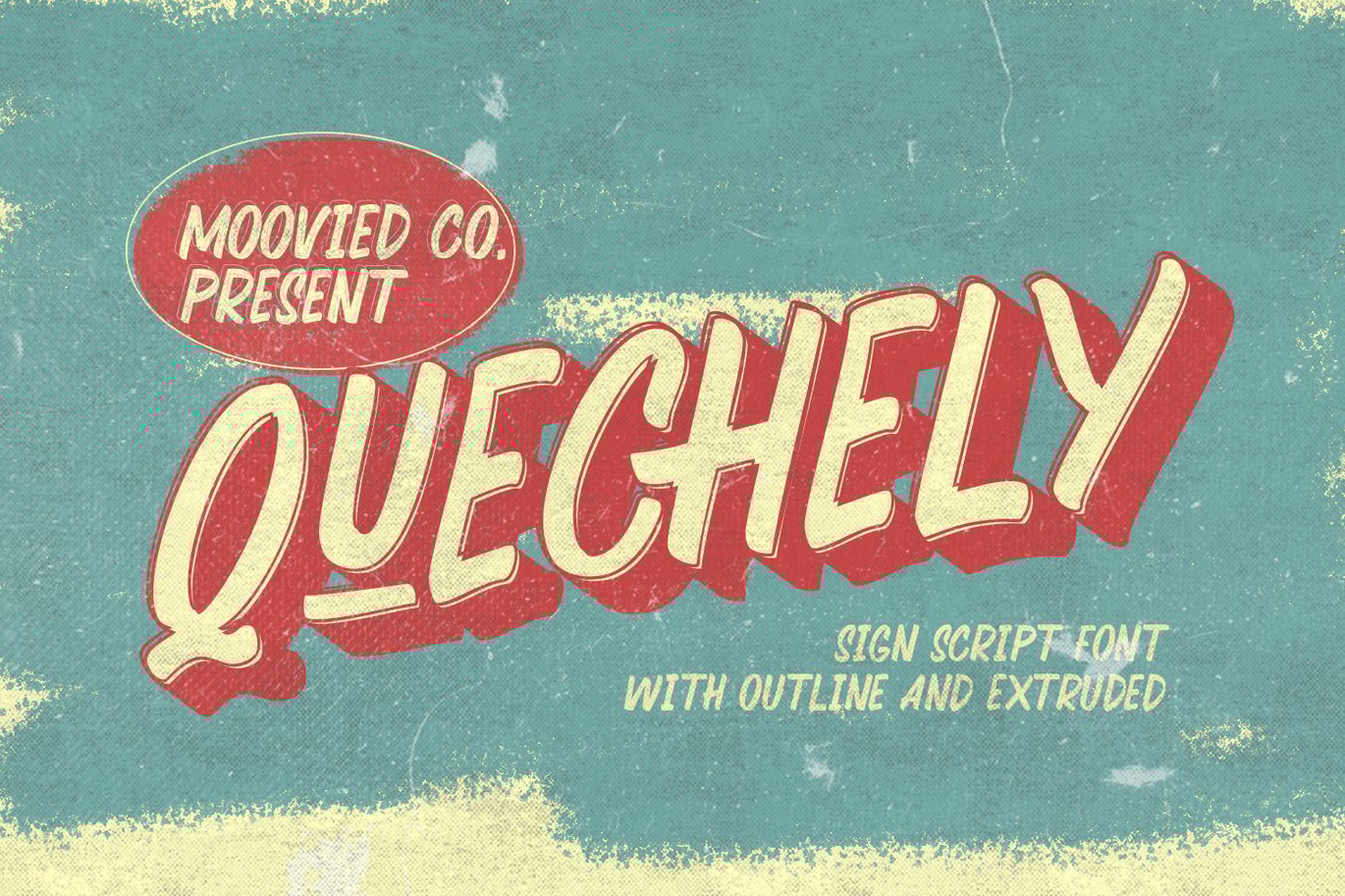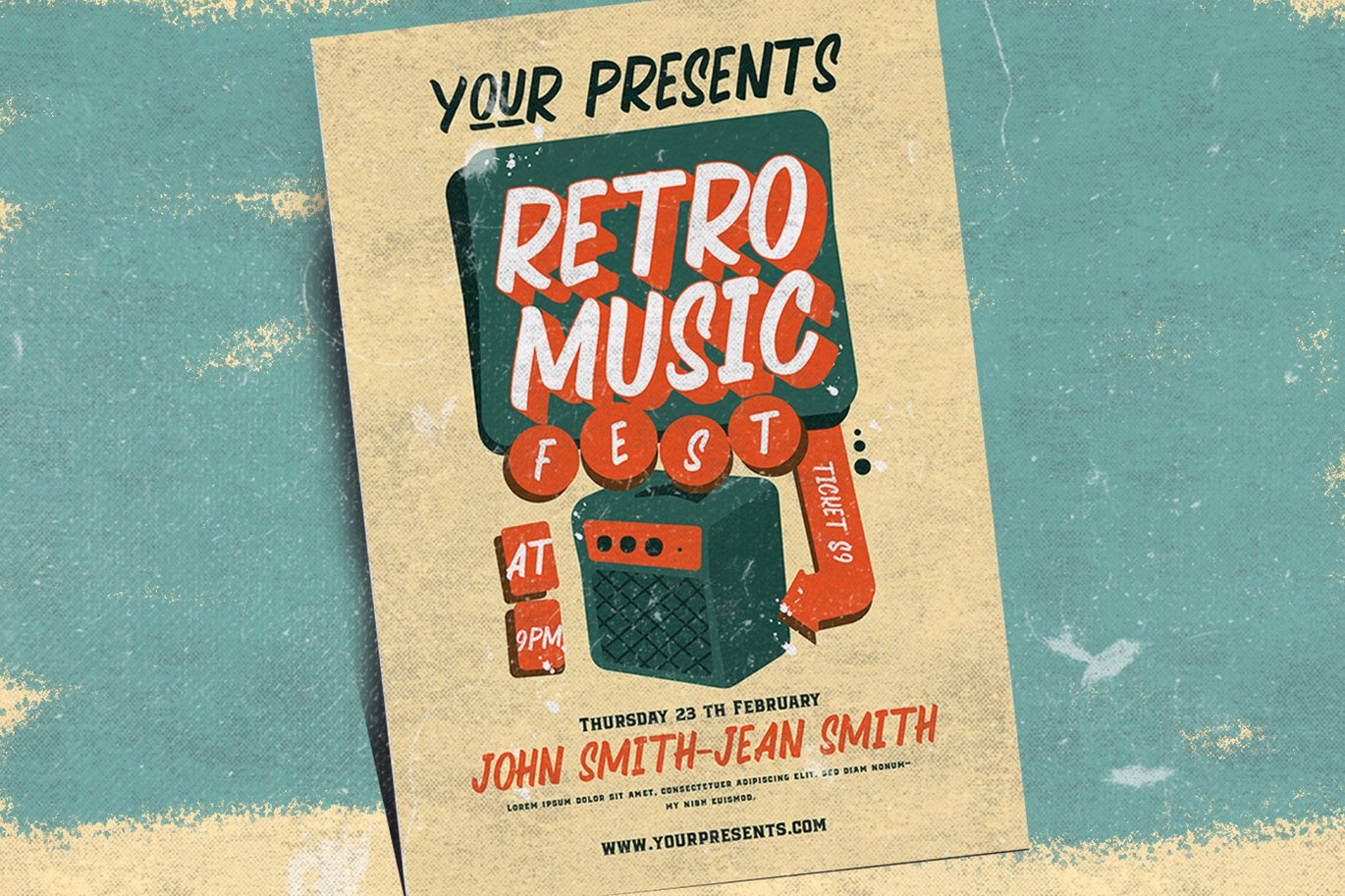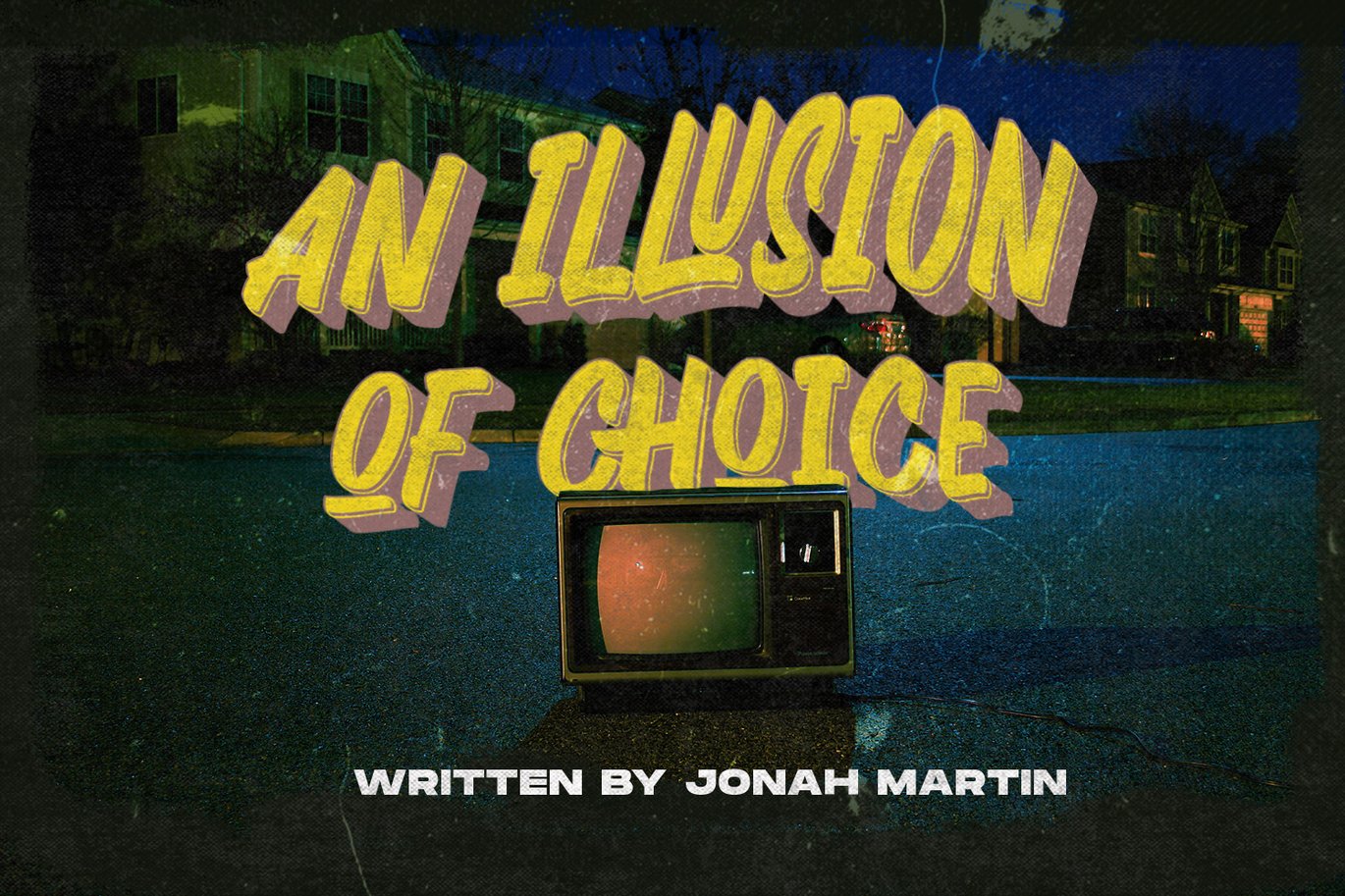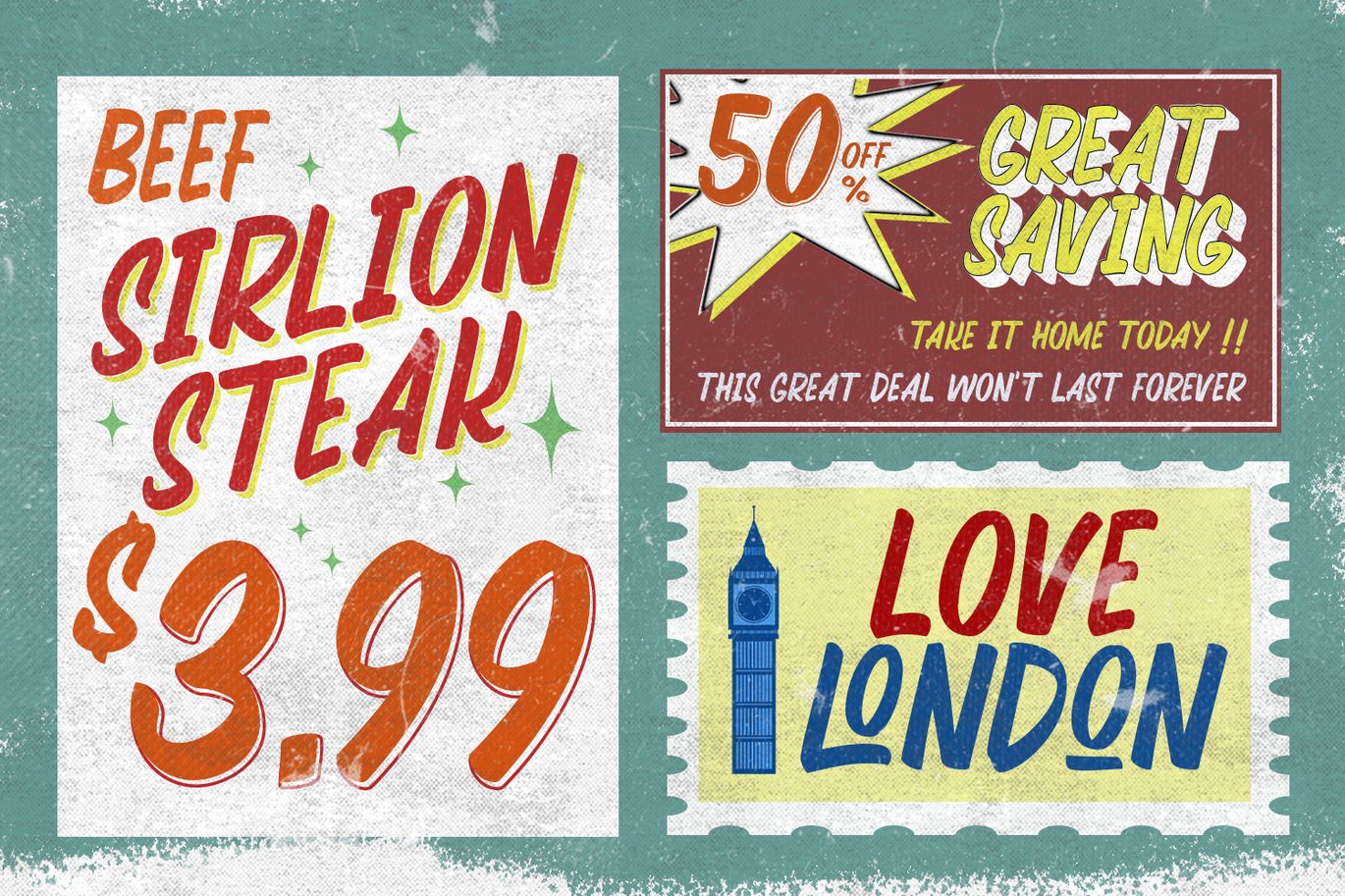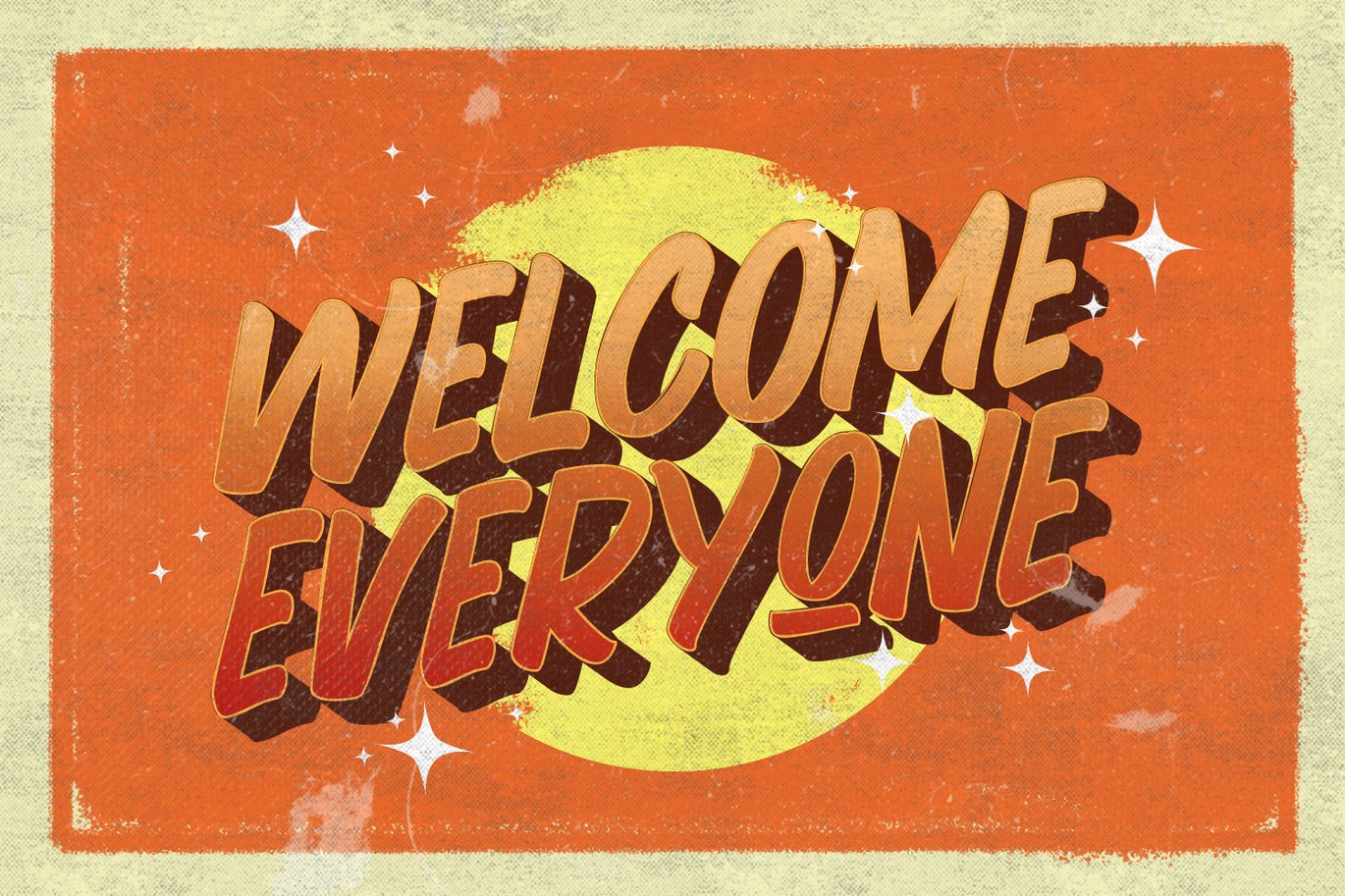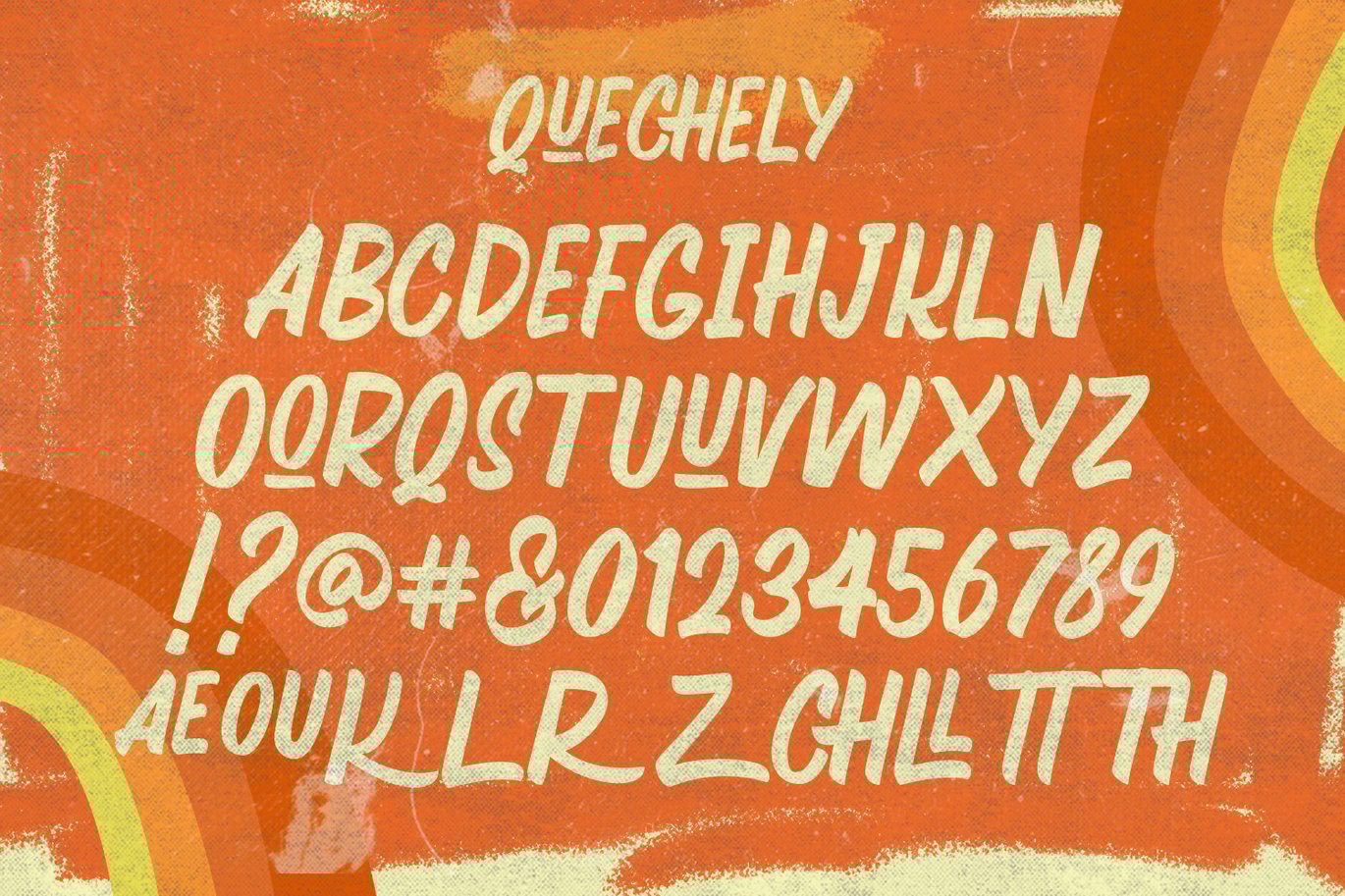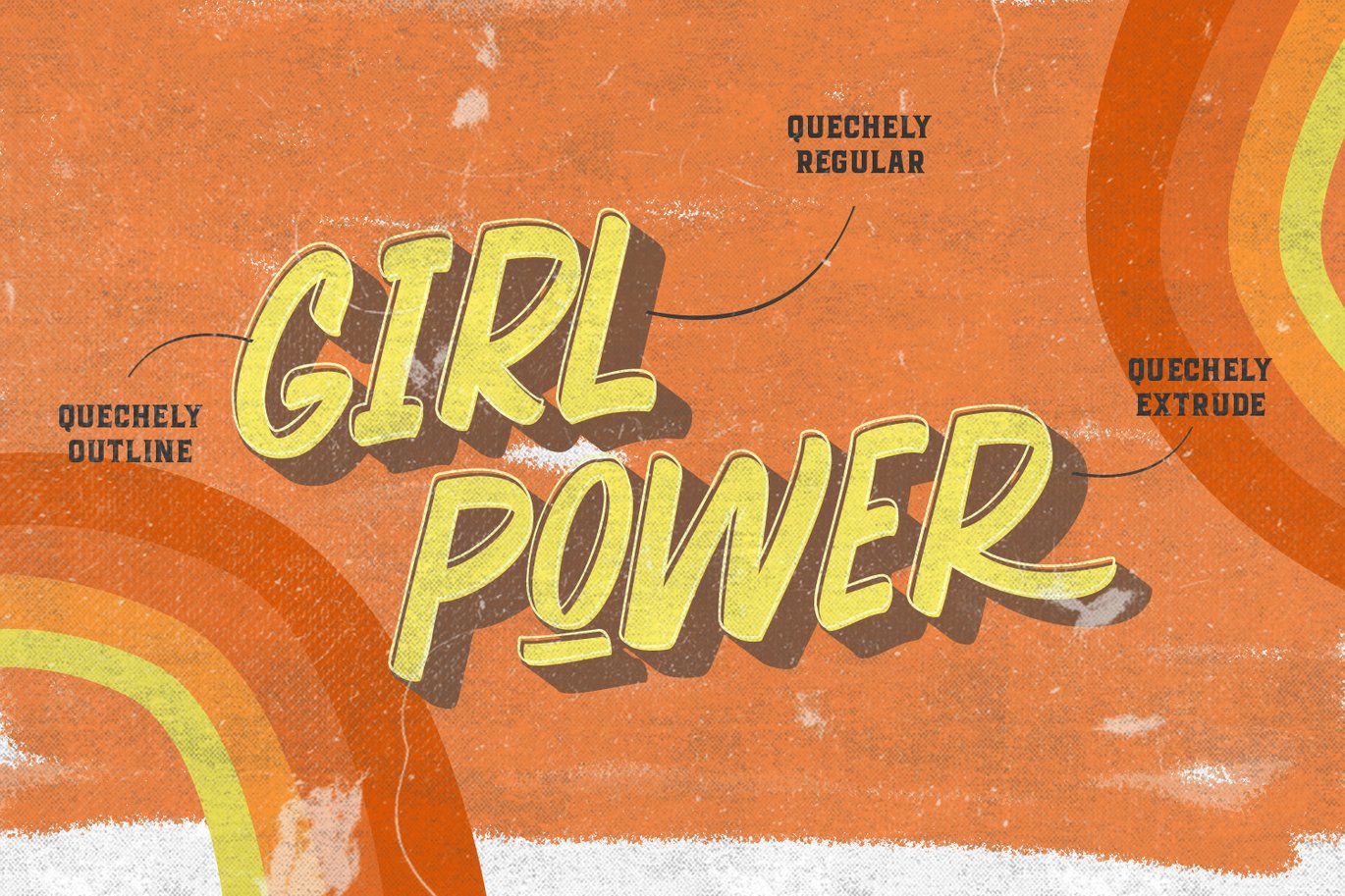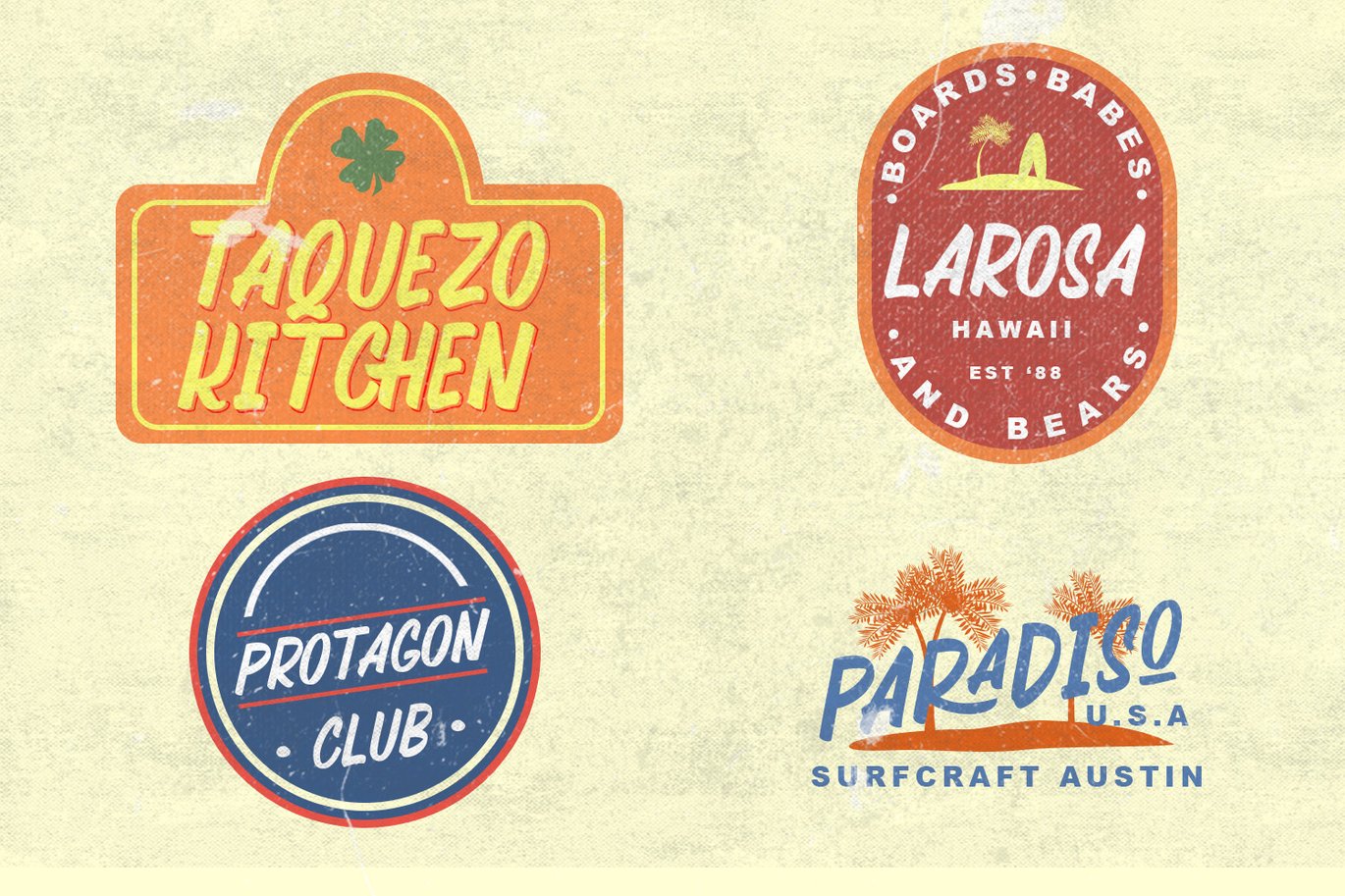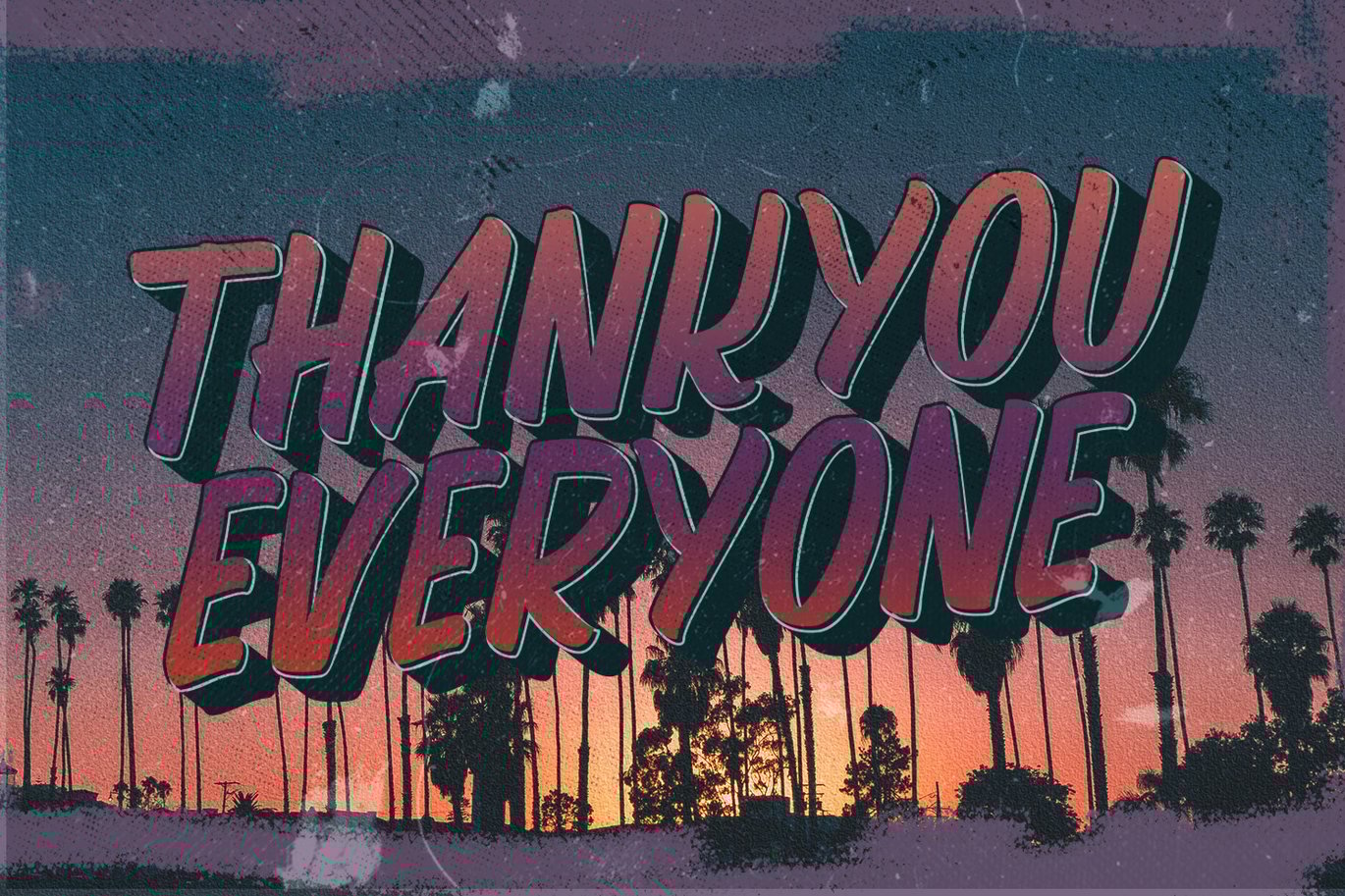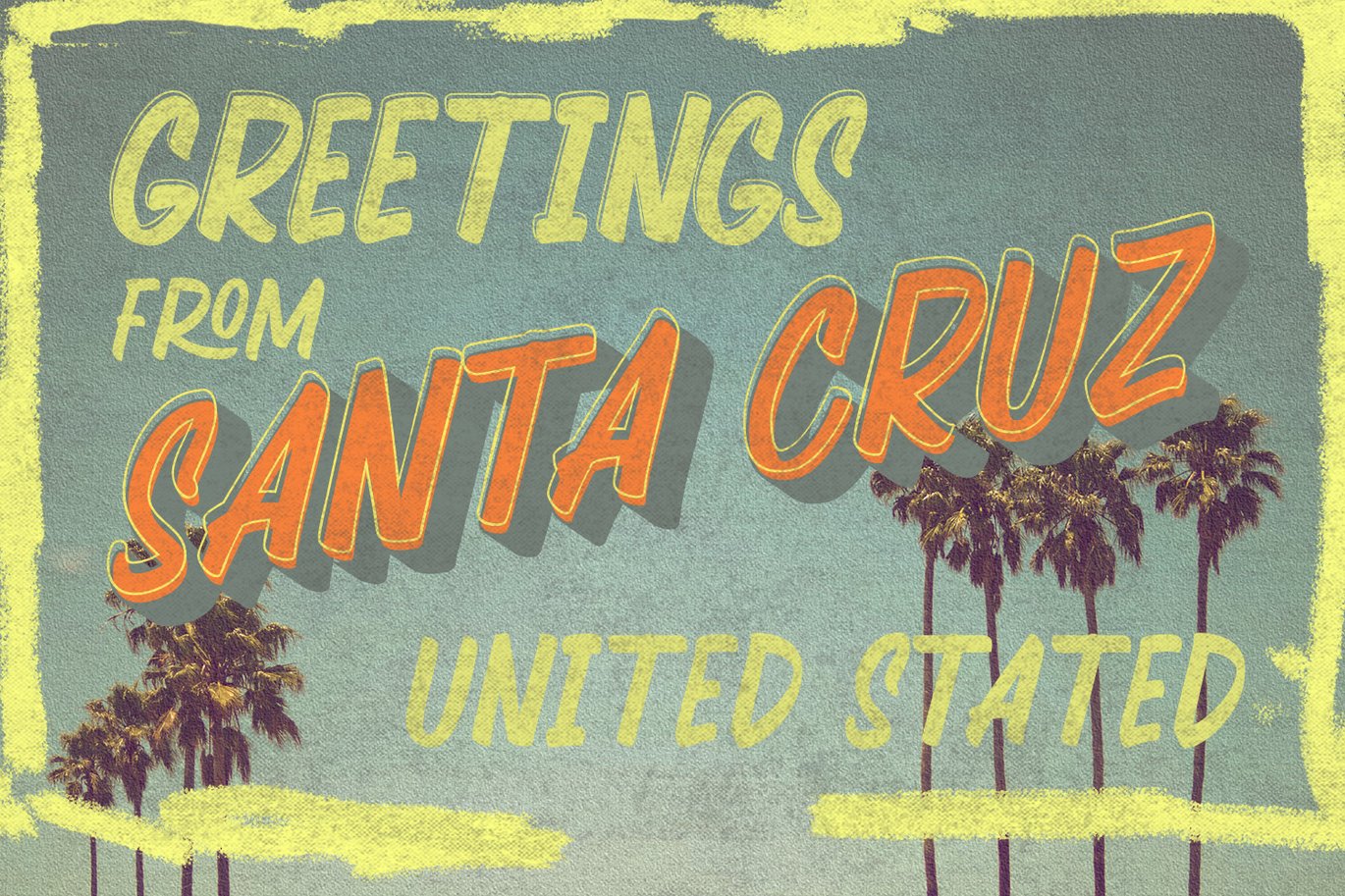
Quechely Sign Retro Layered Font
hi there, a new font layer for the needs of signs with a retro design style, designed with a bold script that comes with 3 styles, lines and shadows, this font was designed by retro typographic design styles in the 60s.
You don’t need to make shadows, this font is designed with a layer font to save your time making designs with retro style 60’an
The Features includes:
- Stylistic Alternates,
- Swashes,
- Ligatures,
- Contextual and Stylistic Set.